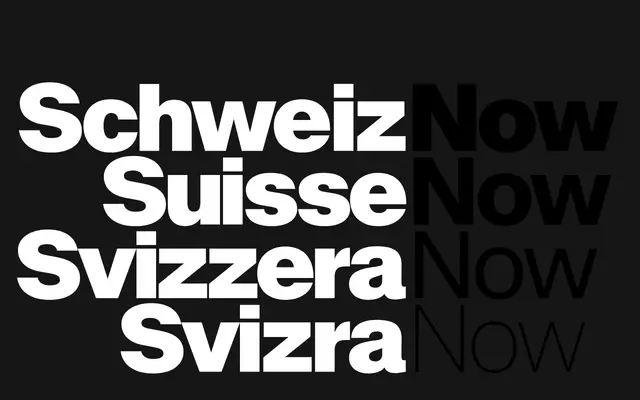
SwissNow
Newglyph · Ian Party
A Swiss grotesque in 20 styles by Ian Party, designed as an affordable homage to mid-century modernist type tradition.
Part of Newglyph's SwissKnife collection, this family takes the formal conventions of Swiss grotesque typefaces as its starting point, offering a variable font alongside 20 discrete static styles. At 433 glyphs per style, it covers a broad sweep of Latin-based languages and includes standard punctuation, mathematical symbols and ligatures. Positioned as a quality-accessible entry point for designers who want the neutrality of the Swiss grotesque without a high licensing cost.
Explicitly modelled on Swiss grotesque typefaces in the modernist tradition, placing it squarely in the grotesque subcategory of sans-serif. The design draws on the formal conventions of mid-century Swiss type such as Helvetica and Univers.